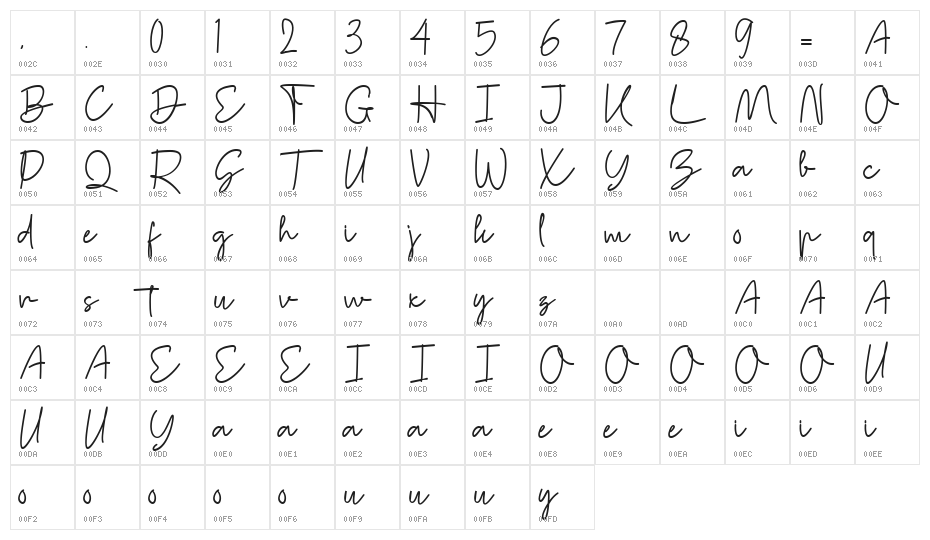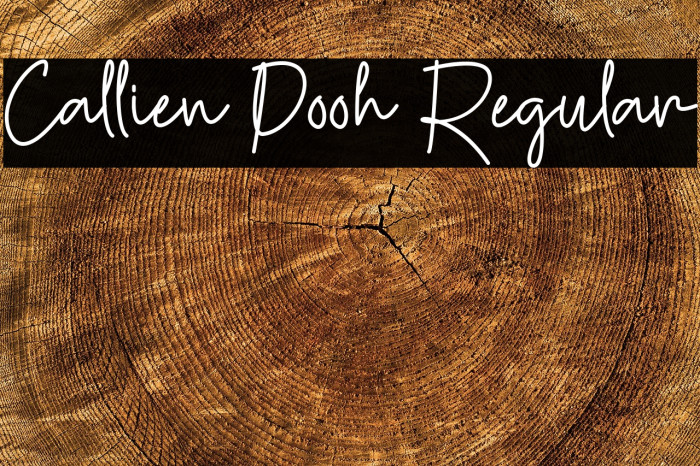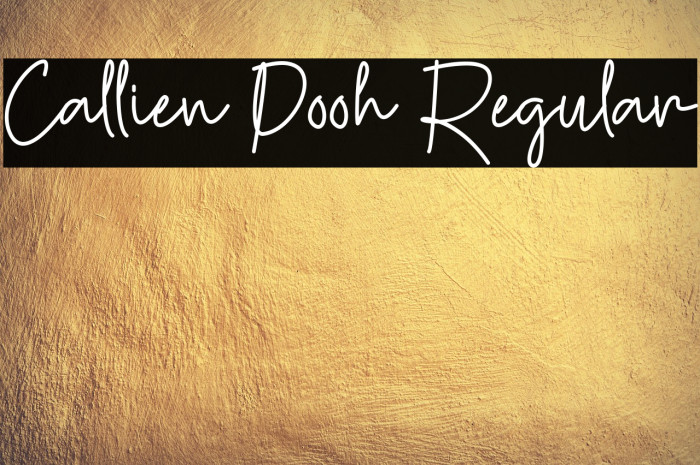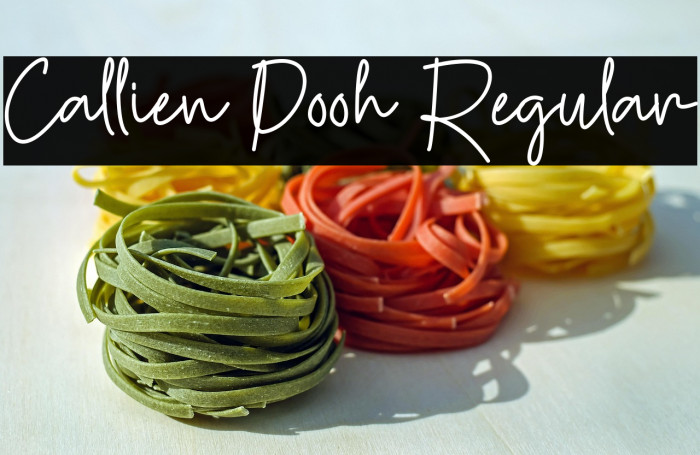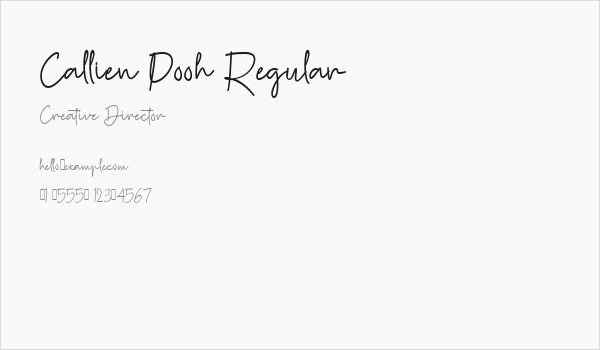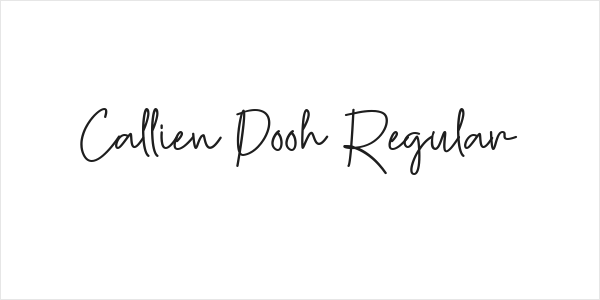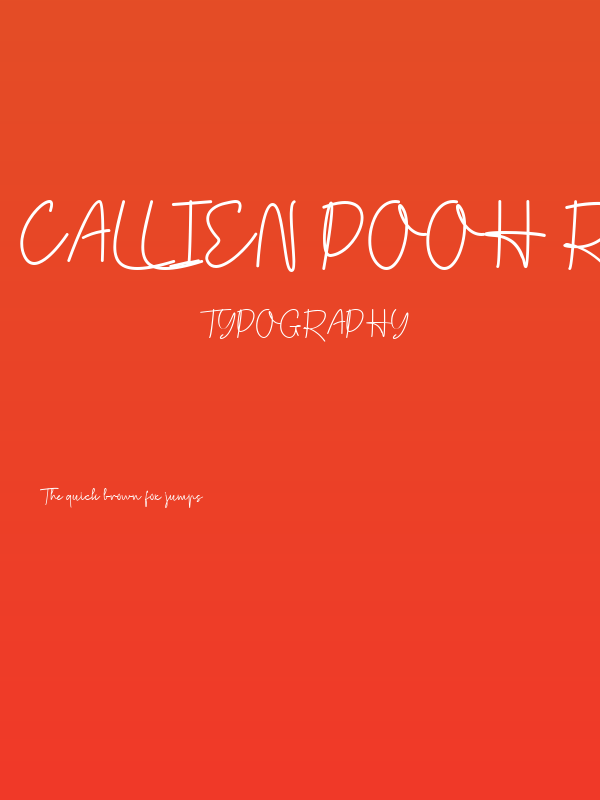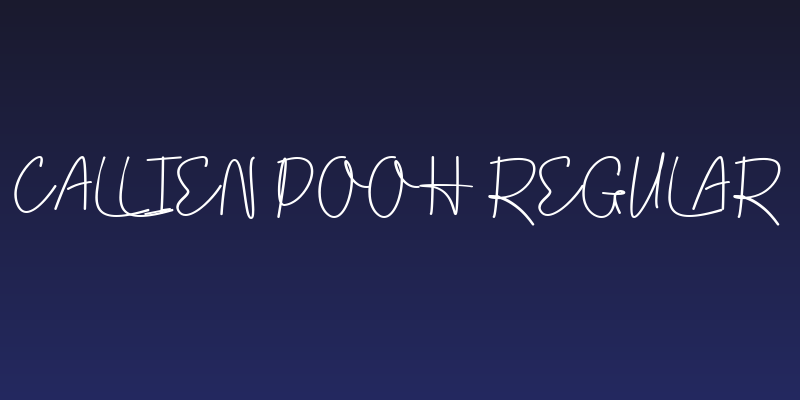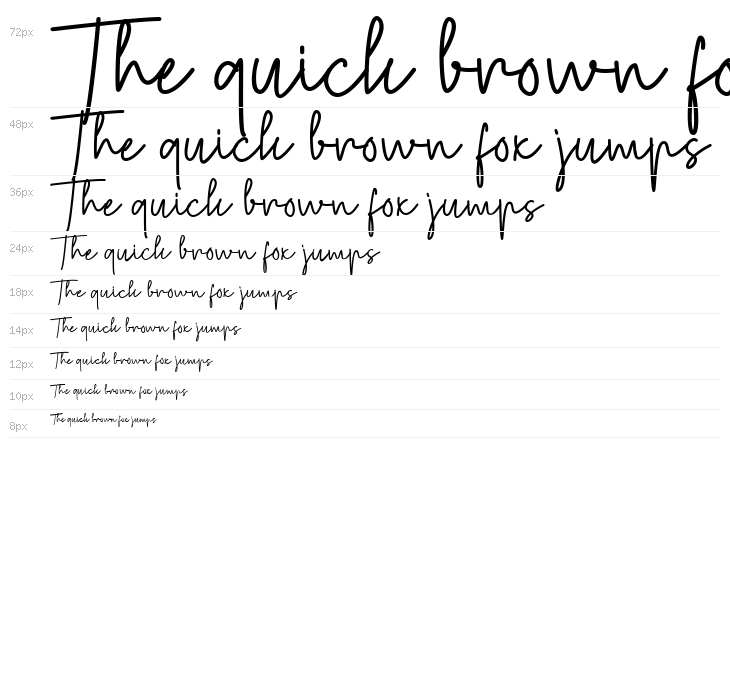
Callien Pooh Regular Font
Callien Pooh Regular Description
This font features a playful and casual handwritten style, characterized by its fluid and dynamic strokes. The uppercase letters are slightly taller and more elongated, giving them an elegant yet informal appearance. The lowercase letters maintain a consistent flow, with some letters like 'g' and 'y' having distinctive loops that add to the font's charm. Numbers are clear and legible, maintaining the same playful style as the letters. The special characters are well-integrated, ensuring versatility in various design contexts. Overall, this font exudes a friendly and approachable vibe, making it suitable for projects that require a personal touch.
| Use Case | Logos, Headlines, Informal Text |
| Proposed Projects | Ideal for greeting cards, personal branding, social media graphics, and informal invitations. |